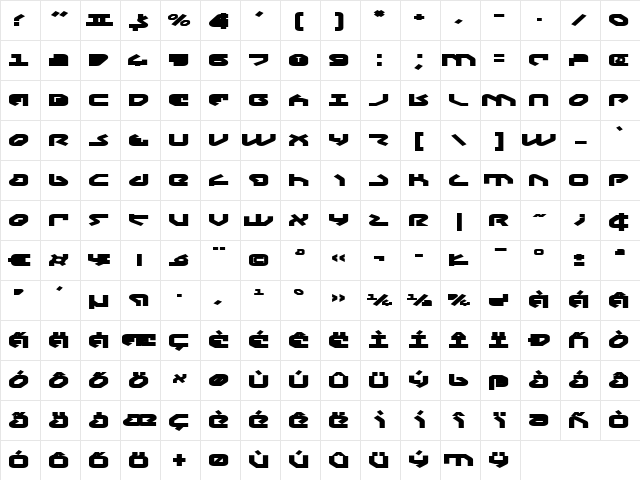
Yahren Expanded Bold Free Font
Yahren Expanded Bold Expanded Bold
Style: Expanded Bold
Designer: Dan Zadorozny
Design Context for Yahren Expanded Bold
Yahren Expanded Bold is a composed and adaptable typeface that performs quietly and consistently across a wide range of design contexts. Its bold stroke weight gives it real presence on the page.